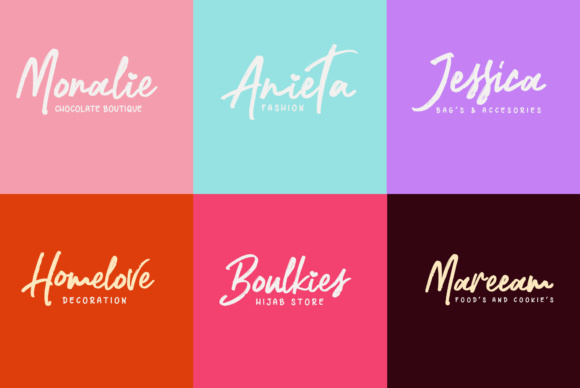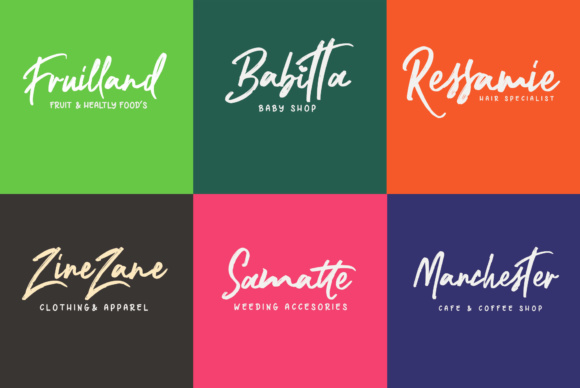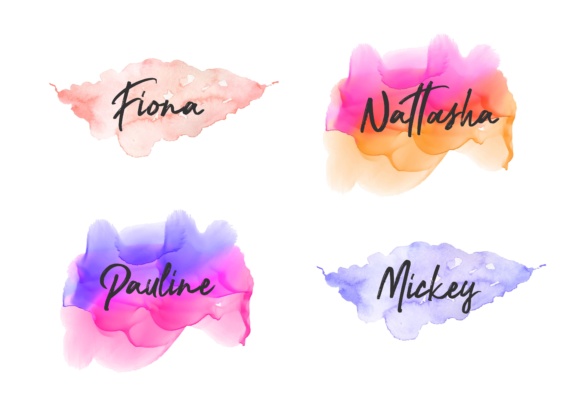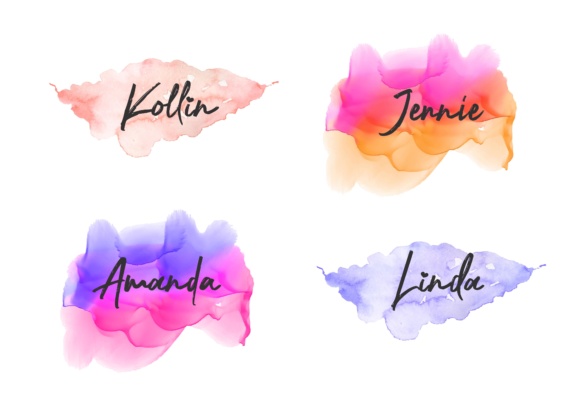
Nocturnal Script Font
About Nocturnal Script Font
Nocturnal is a breathtaking brush stroke font, ideal for use in branding projects and other standout project types. This font has an extremely elegant appeal, and is equipped with two different styles and swashes so you can always create unique designs every time.